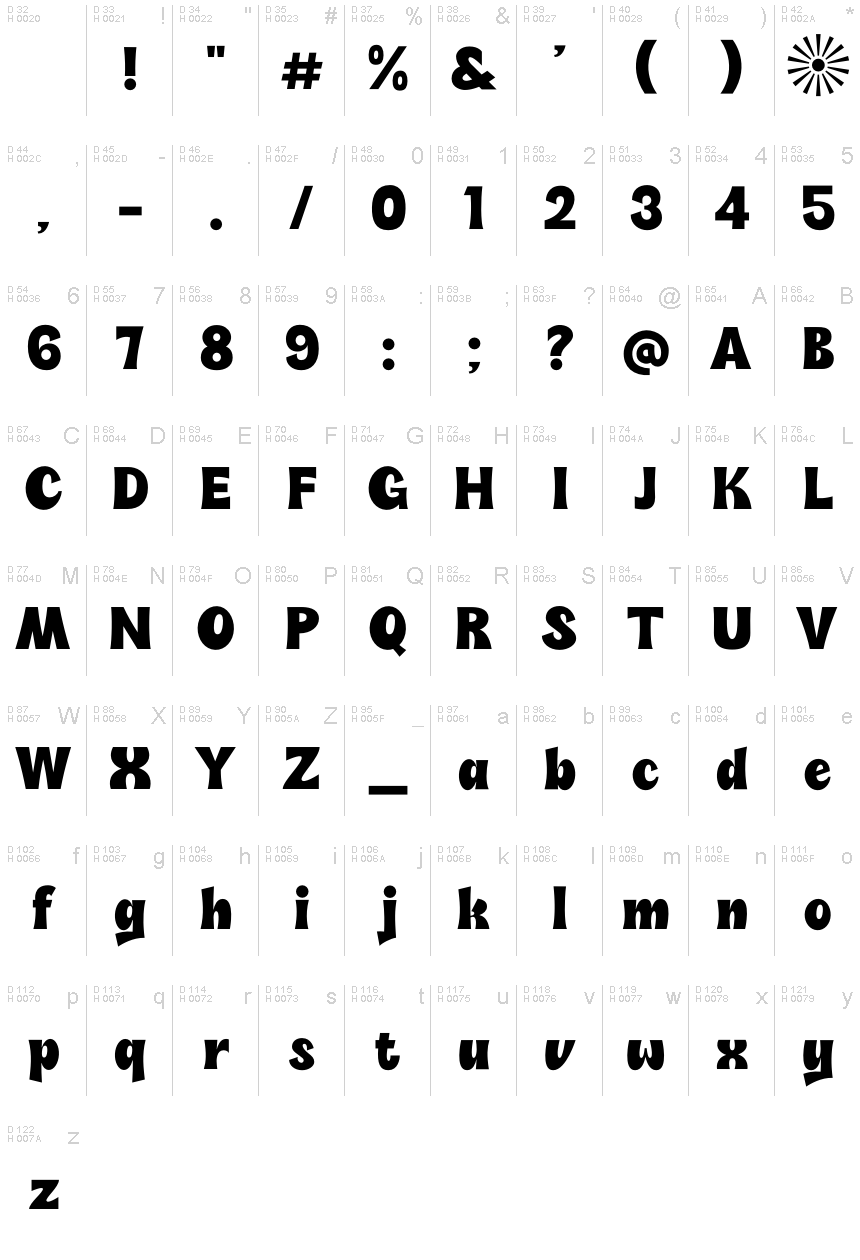
Soli Soleil Bold
Soli Soleil Bold, designed by sez_inn, is a captivating display font that exudes a groovy charm. Its bold strokes and playful curves bring to life the spirit of the 1970s, offering a blend of nostalgia and modern flair. This font's cheerful personality shines through its rounded forms, making it perfect for designs that aim to stand out with a touch of whimsy.
Ideal for eye-catching headlines, vibrant branding projects, or any creative endeavor that desires an injection of fun, Soli Soleil Bold is your go-to choice for making a statement. Whether it's on posters, album covers, or digital graphics, this font is sure to leave an impression with its unmistakable style and vivacious energy.